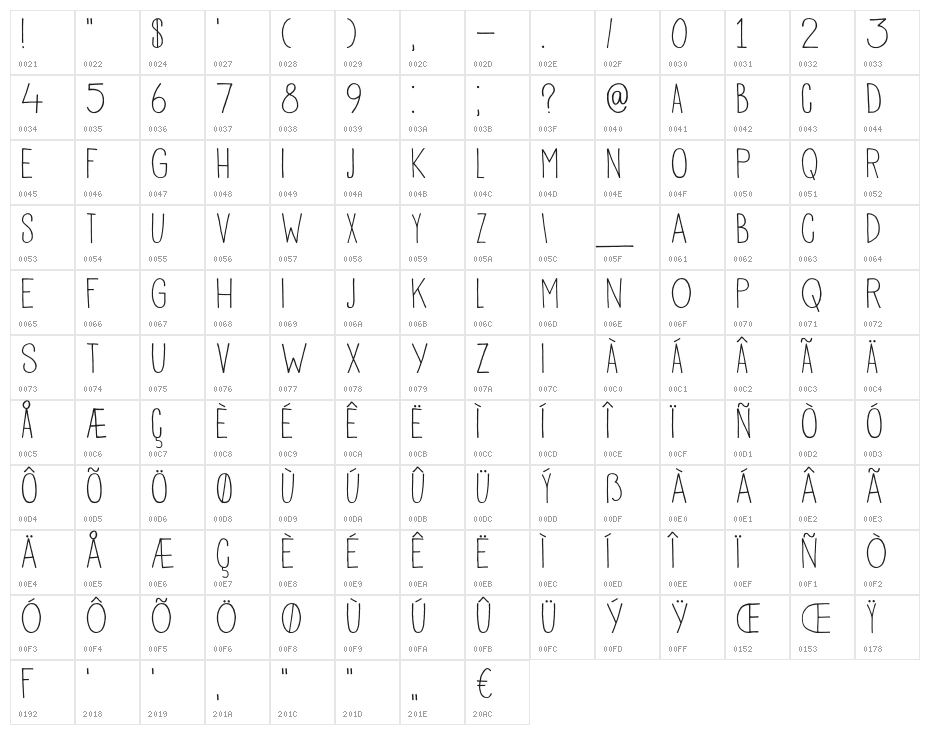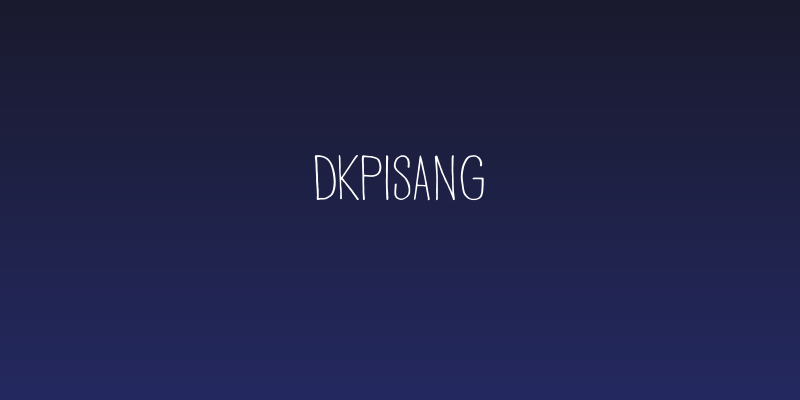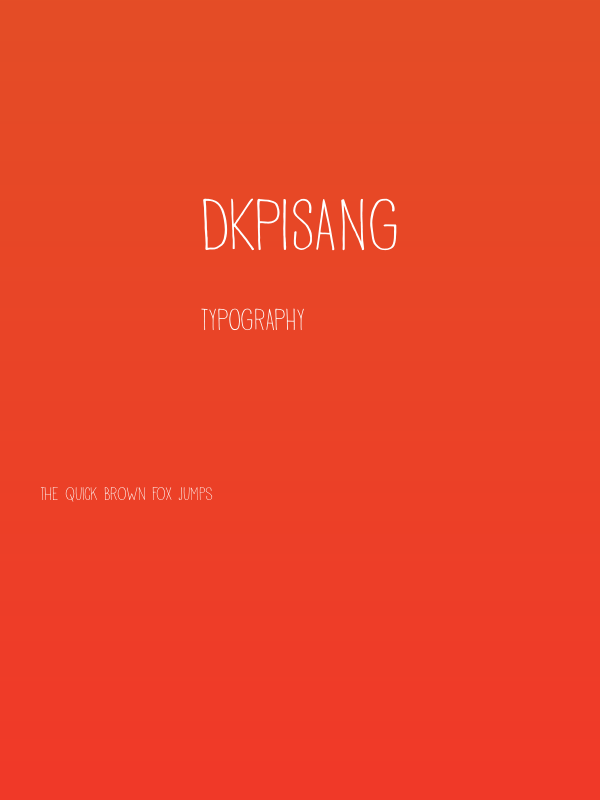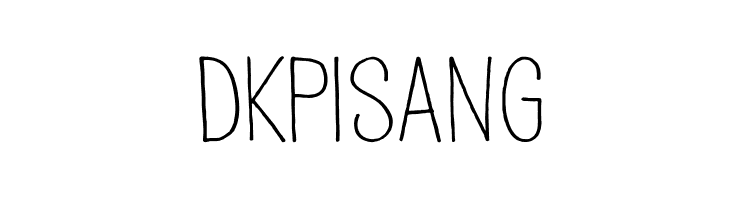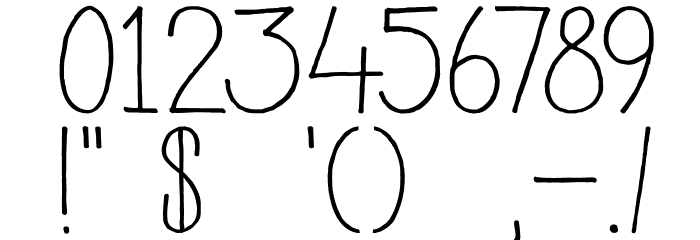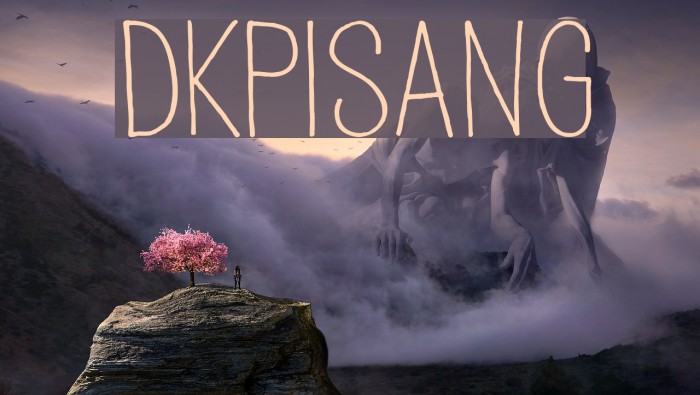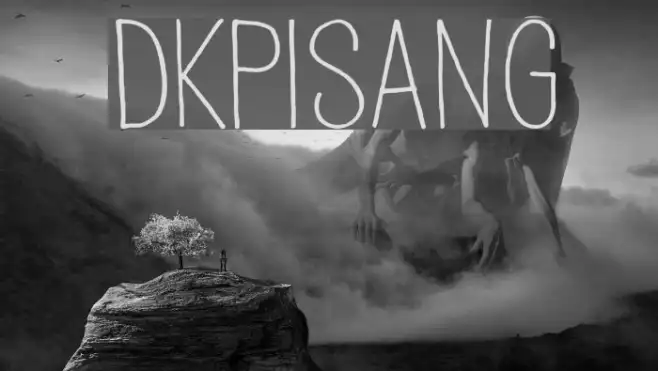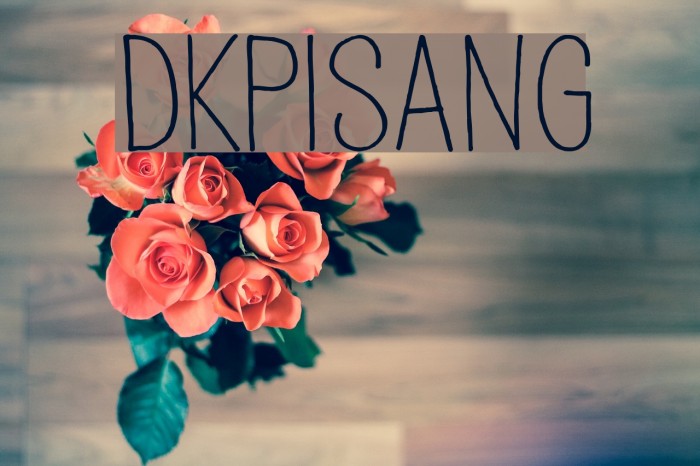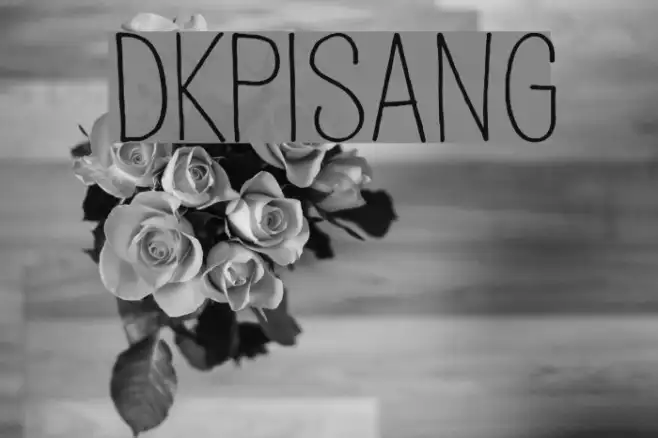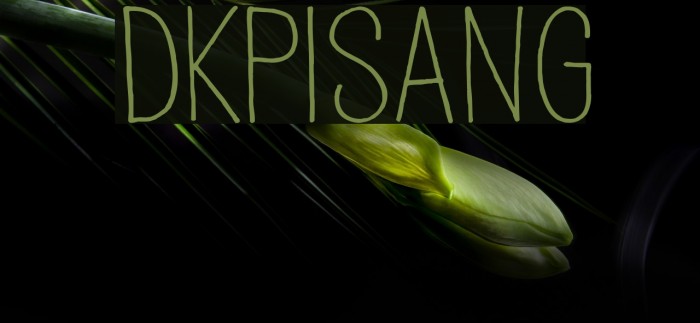
DKPisang Font
DKPisang Description
This font features a playful and handwritten style, characterized by its tall, narrow letters with a slightly irregular baseline, giving it a casual and informal appearance. The strokes are consistent in width, providing a uniform look across all characters. The uppercase and lowercase letters maintain a similar height, which adds to the font's quirky charm. The numbers and special characters follow the same design principles, ensuring a cohesive overall aesthetic. This font is well-suited for projects that require a personal touch or a sense of whimsy.
| Proposed Projects | Ideal for greeting cards, children's books, casual branding, and creative posters. |